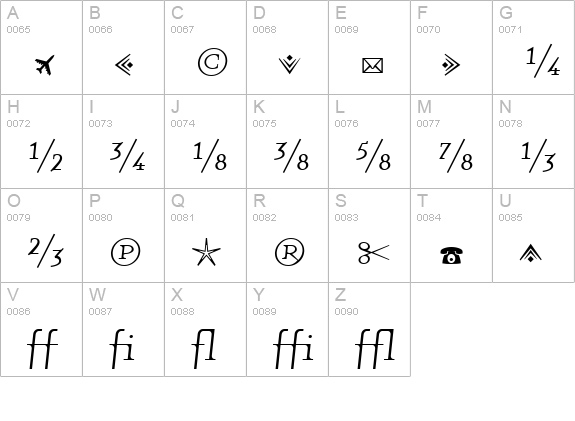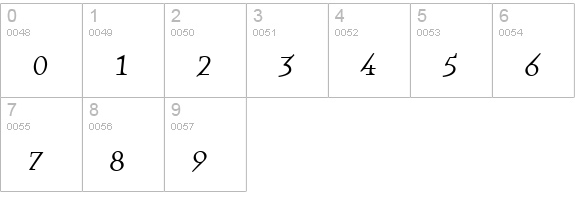
QuartetFractionsRegular Font Details
QuartetFractionsRegular is the standard, neutral variant in the QuartetFractionsRegular typeface family \xE2\x80\x94 well suited to general body text, paragraphs, and standard typographic work.
QuartetFractionsRegular font is a beautiful and versatile typeface that is perfect for a wide range of design projects. With its clean lines and elegant curves, this font adds a touch of sophistication to any text. Whether you're working on a logo, a website, or a print design, QuartetFractionsRegular font will help you create a polished and professional look. This font is not only visually appealing, but it is also incredibly functional. With its clear and easy-to-read characters, QuartetFractionsRegular font is suitable for both large headers and small body text. It also includes a set of fraction symbols, making it ideal for projects that require precise and accurate typography. One of the best things about QuartetFractionsRegular font is that it is free to download. You can easily access this font at FontsMarket.com, where you will find a wide selection of high-quality fonts for all your design needs. By downloading QuartetFractionsRegular font, you can add a touch of elegance and professionalism to your projects without spending a dime. Don't miss out on this incredible opportunity to enhance your designs with QuartetFractionsRegular font. Download it for free today at FontsMarket.com and take your typography to the next level.